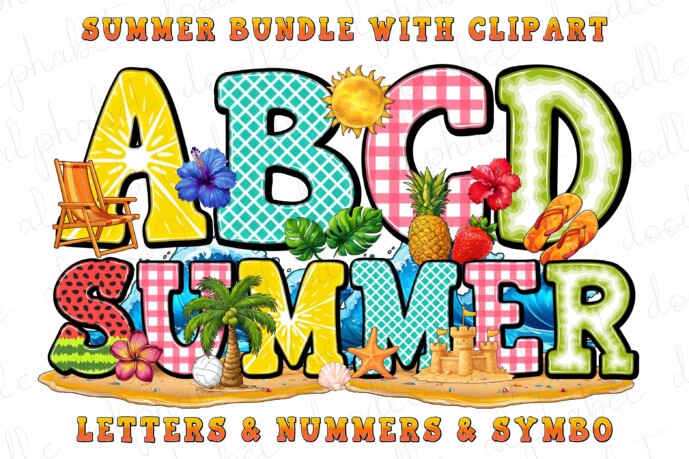
Summer Font
Designer: Doodle Alphabet
Experience the youthful exuberance of Summer, a colorfully dynamic font that infuses your designs with a lively and amiable charm. Emanating the inviting warmth of a sun-kissed summer, it beautifully harmonizes with creative projects channeling serene holidays, memory-filled vacations or cheerful festivities. Let Summer Beach splash its radiant energy across your personalized t-shirts, attention-grabbing posters, or any craft that craves a dollop of joyous vitality.